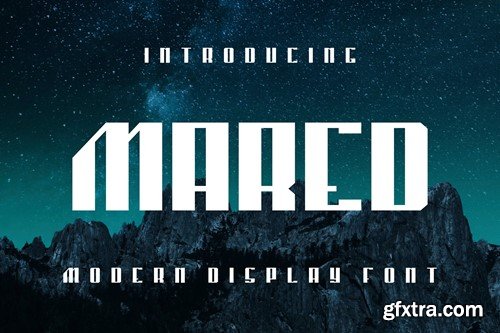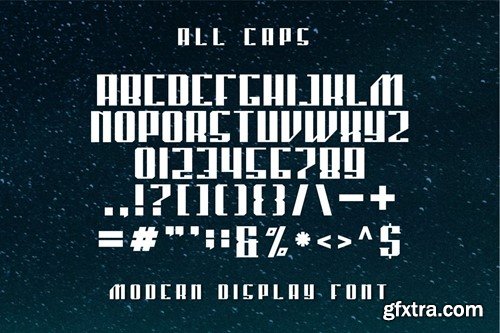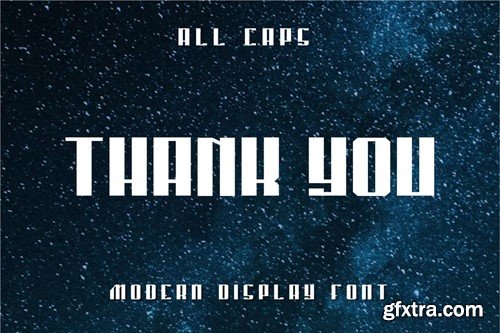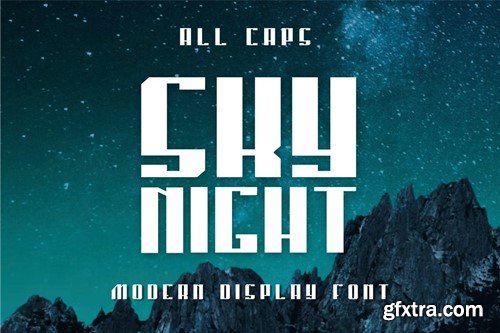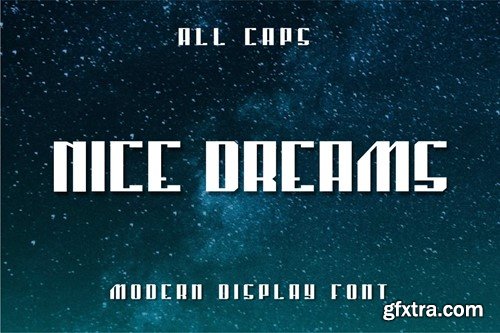
玛德 - 现代字体VZZ8AZL
Mared - Modern Font
Introducing our new product Mared - Modern Font Mared is a bold, modern display font with playful flair, ideal for attention-grabbing headlines, logos, and diverse design projects. Versatile and readable in both digital and print, Mared adds a dynamic touch to your message. availlable